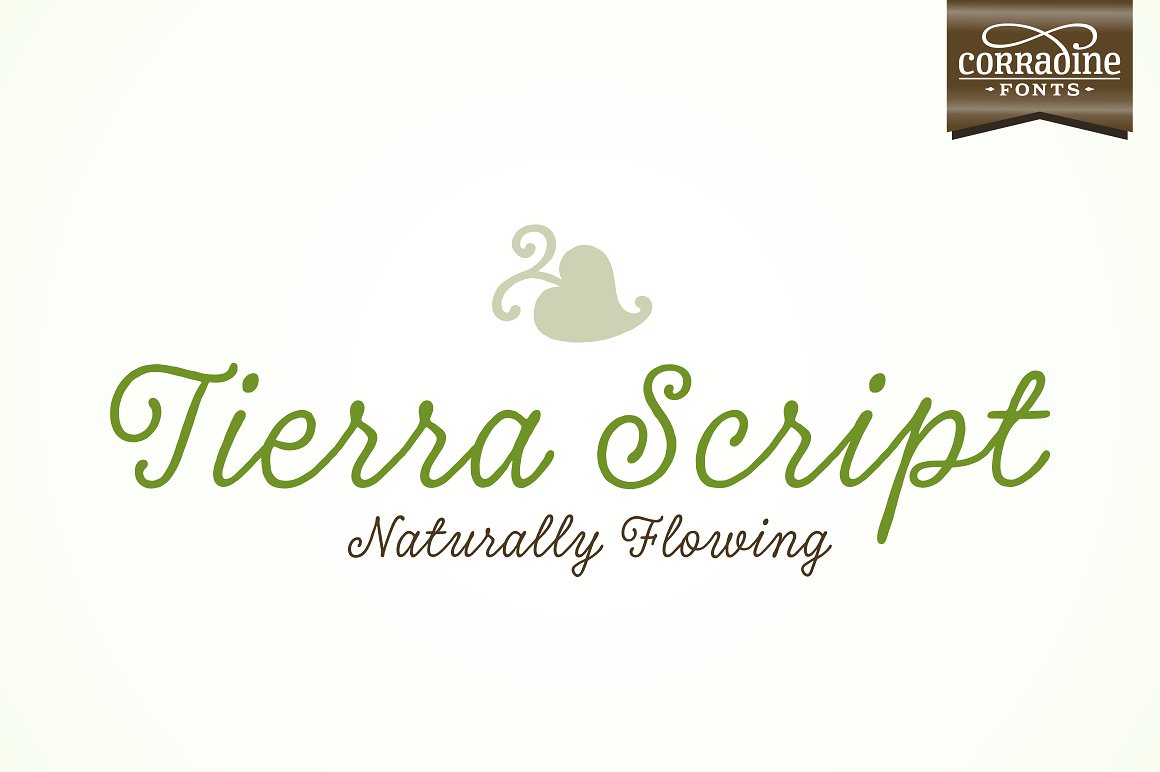
Tierra Script Font
Tierra Script Font is perfect for organic farm branding, eco-friendly product packaging, natural wellness centers, artisanal craft labels, sustainable fashion brands, and earth-conscious lifestyle magazines. Its grounded character makes it ideal for botanical gardens, environmental organizations, organic restaurants, handmade soap companies, yoga retreat centers, and any project requiring authentic connection with nature and sustainable living philosophies.
This font is exciting because it embodies the organic beauty and natural flow of earth's elements while maintaining exceptional readability and contemporary functionality. The flowing letterforms capture the essence of wind through grass, rivers carving landscapes, and the gentle curves of natural growth patterns, creating powerful emotional connections that resonate with audiences seeking authentic environmental consciousness and sustainable lifestyle choices.
The Tierra Script Font family typically includes Regular, Bold, and Light variations with organic flourishes, nature-inspired ornaments, and botanical decorative elements that enhance its earthy personality. This comprehensive collection enables designers to create cohesive brand systems that maintain natural authenticity while providing creative flexibility for various eco-conscious applications and sustainable market positioning strategies.